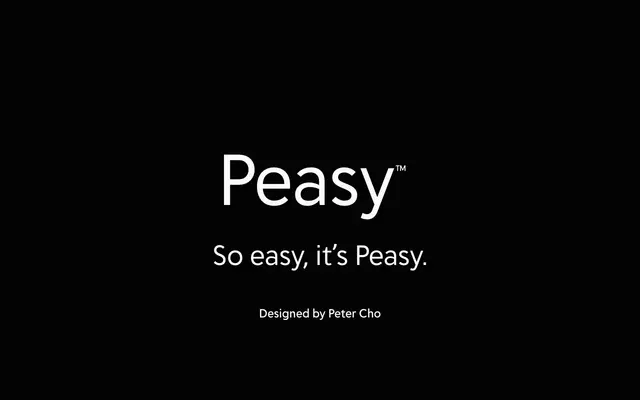
Peasy
A low-contrast humanist sans by Peter Cho, designed for extended reading and medium-sized display use with broad language support across 367 languages.
Six weights from Light to Black, each with an italic, make up the family. Open apertures, soft stroke endings and a generous x-height give it a readable warmth without becoming decorative. OpenType features are well stocked: small caps, oldstyle and tabular figures, schoolbook alternates, arrows, fractions and a wide range of currency symbols, with Vietnamese and numerous African and Oceanic languages included in its 367-language coverage.
Low-contrast with open apertures and a gestural, soft quality; these traits, combined with a comfortable x-height and readability focus, place it firmly in the humanist sans tradition.